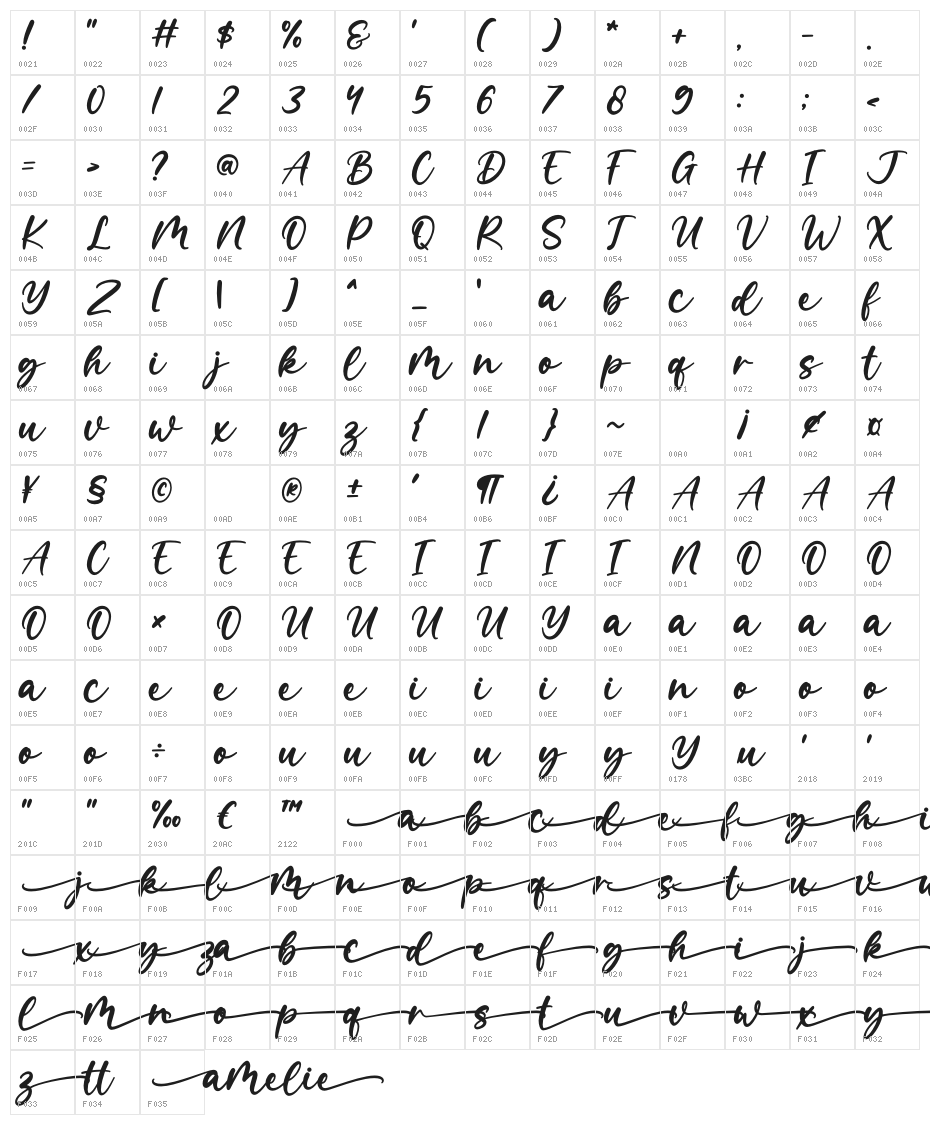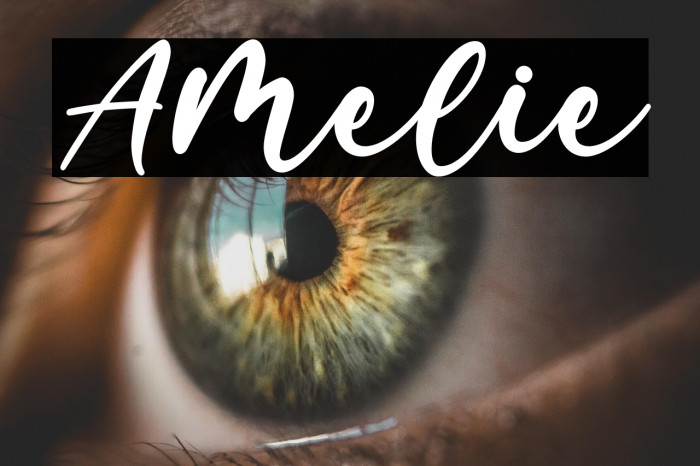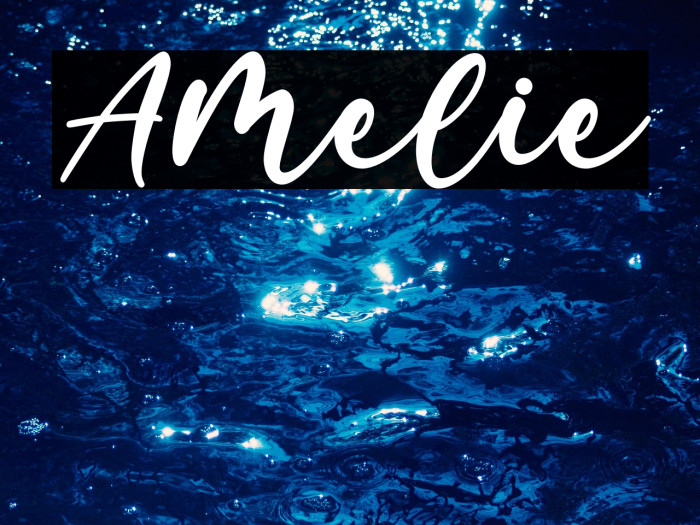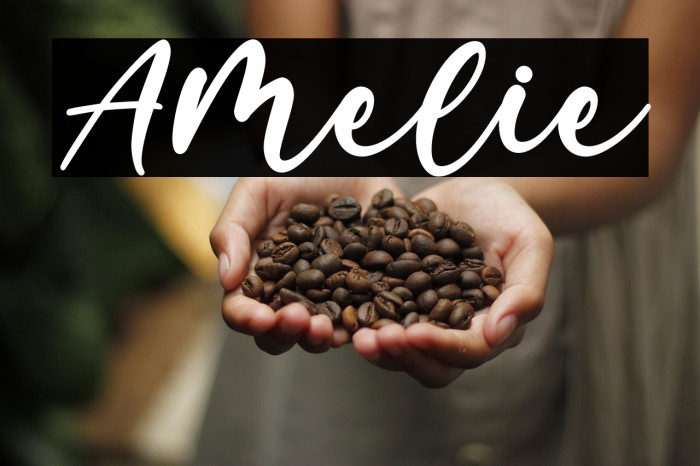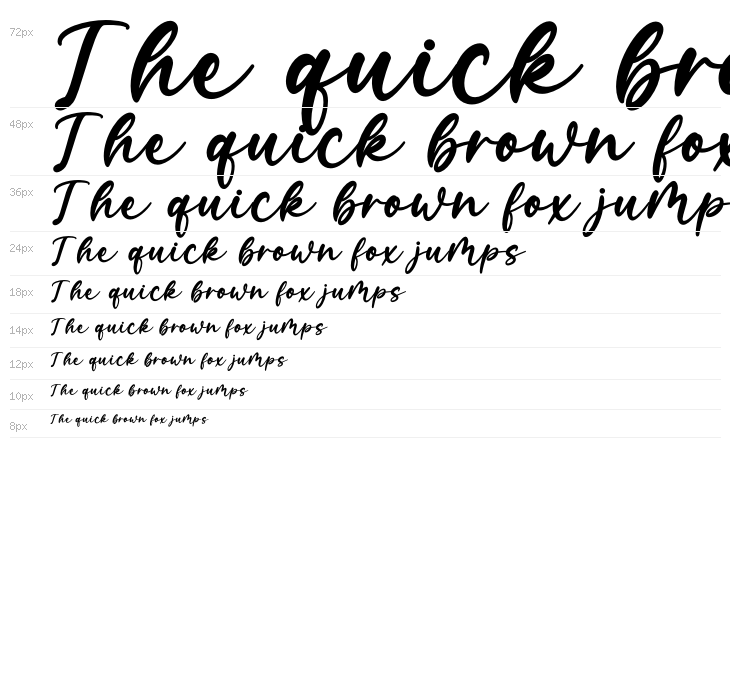
Amelie Font
Amelie Description
This font exudes a lively and expressive character with its flowing, cursive style. The letters are crafted with a smooth, continuous stroke that mimics the fluidity of handwriting. Each character is slightly slanted, adding a dynamic and elegant touch. The uppercase letters are bold and prominent, while the lowercase letters maintain a consistent rhythm, enhancing readability. The numerals are well-proportioned and align seamlessly with the overall style. Special characters are thoughtfully designed, maintaining the font's cohesive aesthetic. This font is perfect for projects that require a personal and artistic flair.